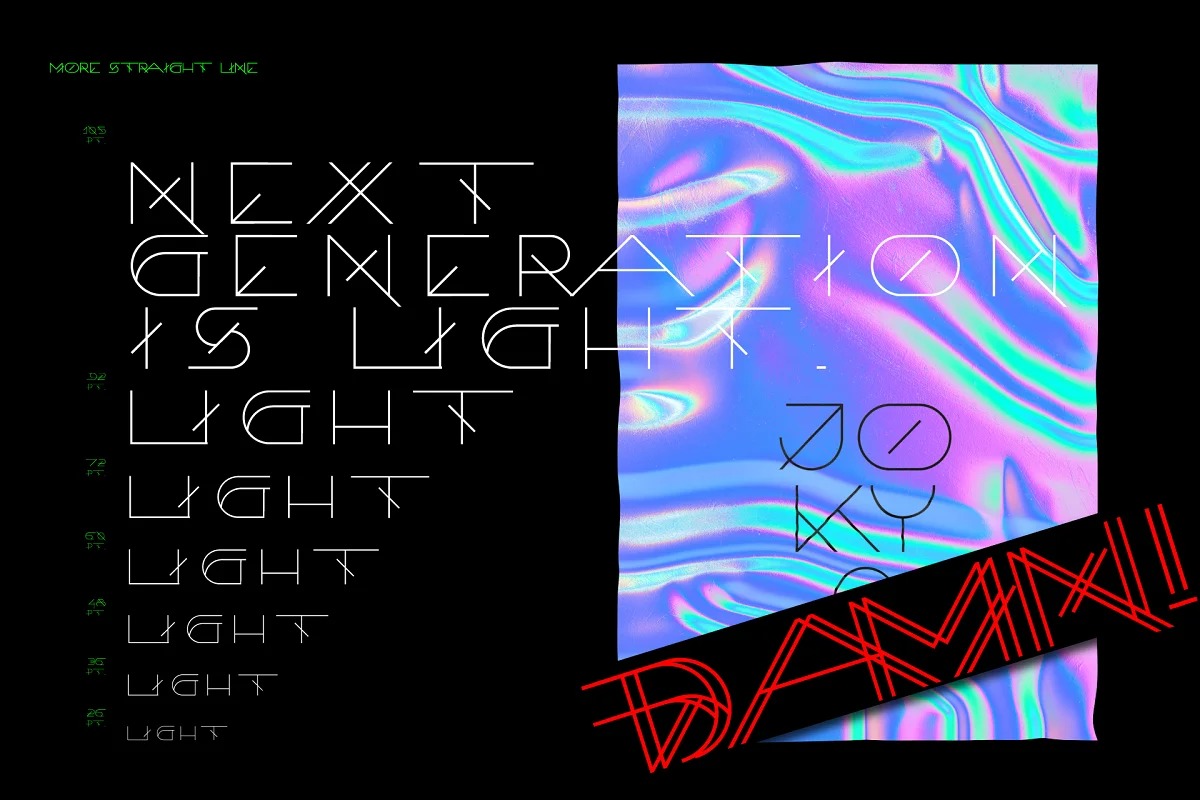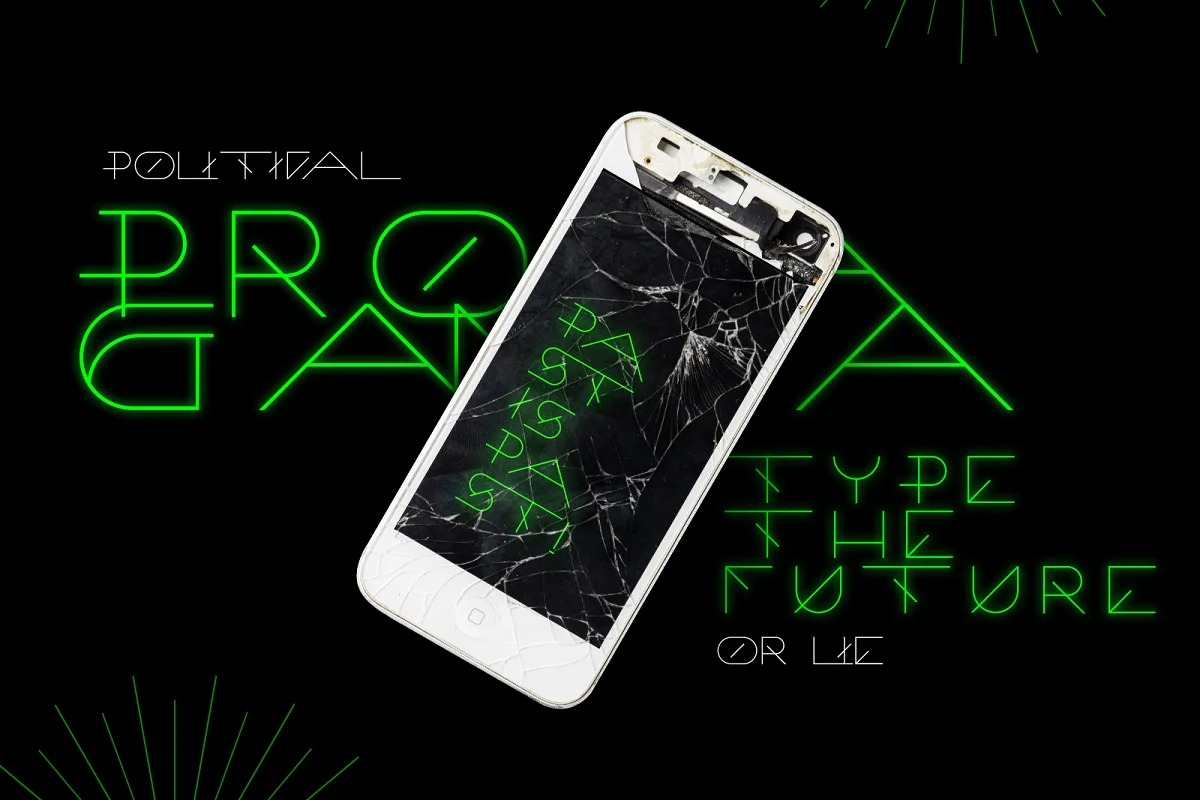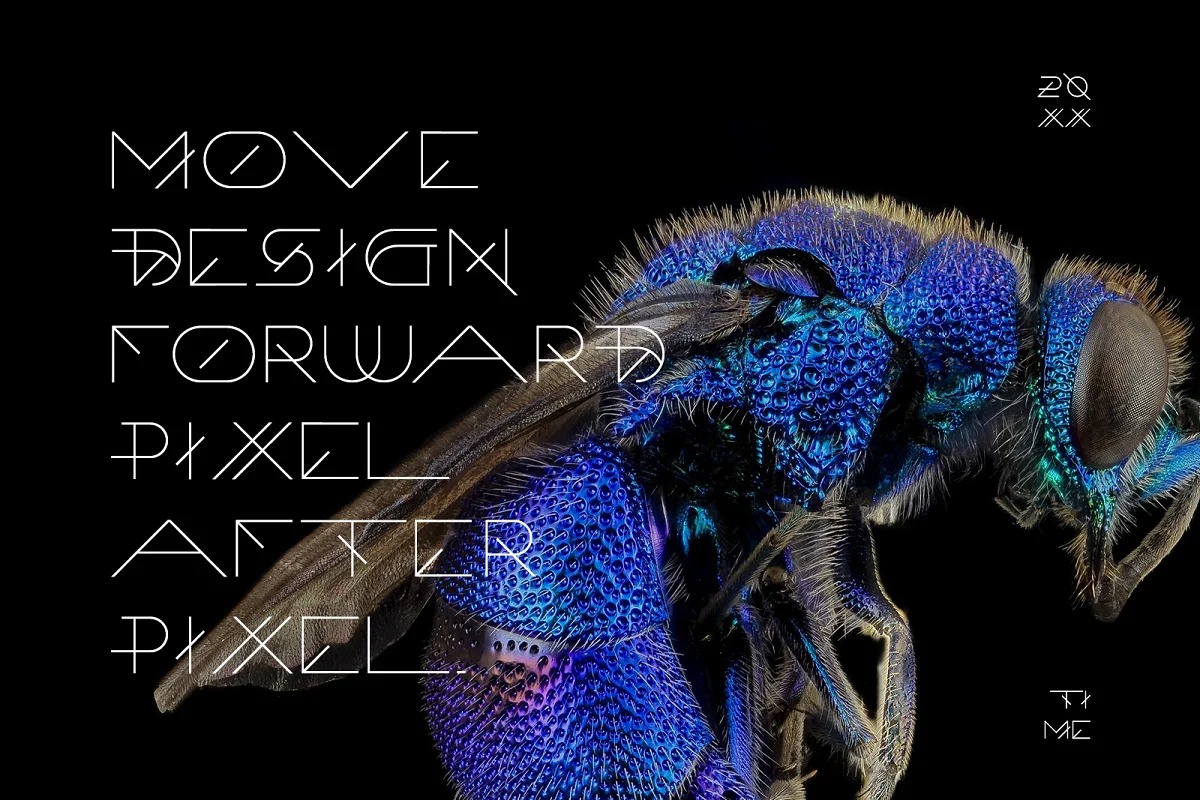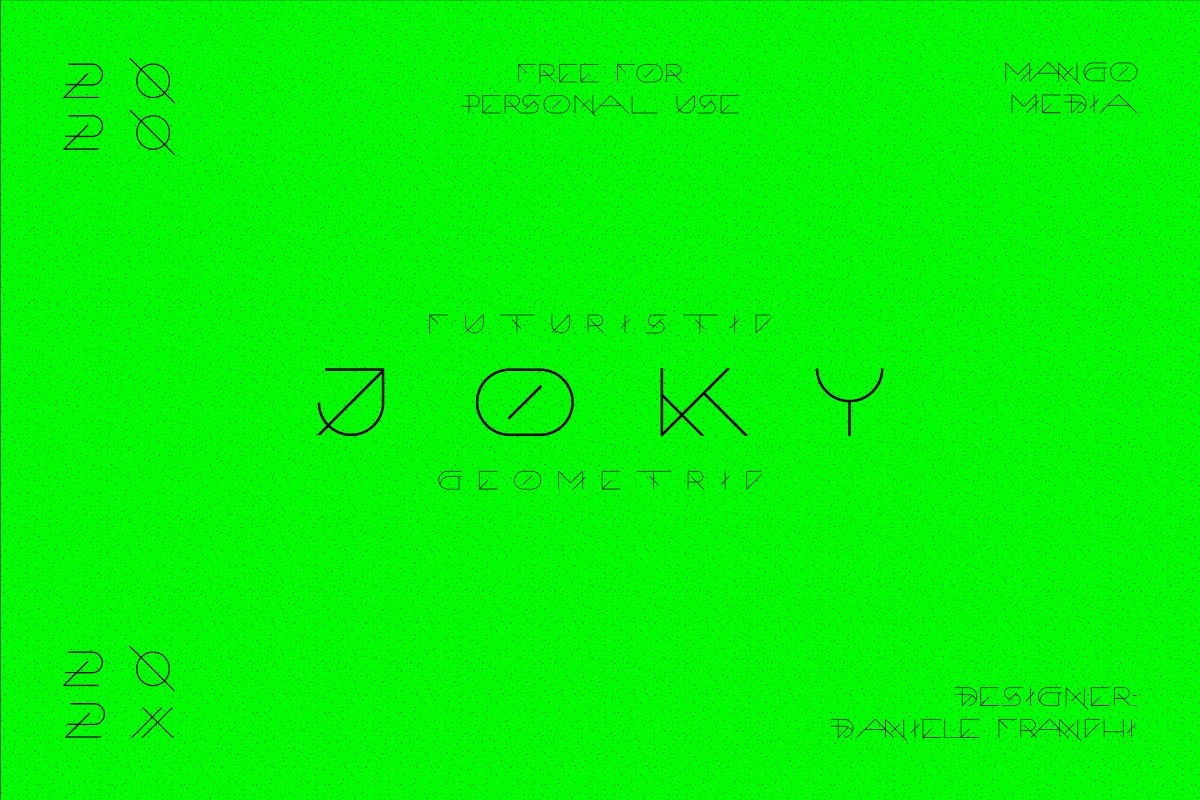
Joky Font
Joky Display Font
It’s a clean modern thin font by DanieleFranchi. This typeface is full of futuristic scifi vibes with high clarity. The letters, deigned to have different width, combined, create unique forms. Great for any design works related to future, music or space. Screaming uppercase only.